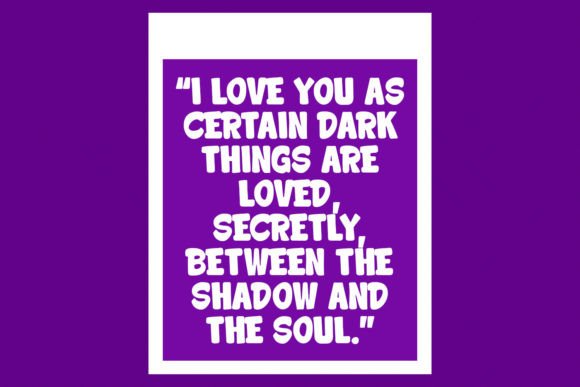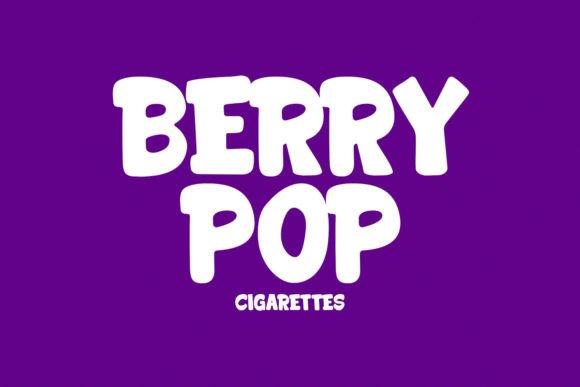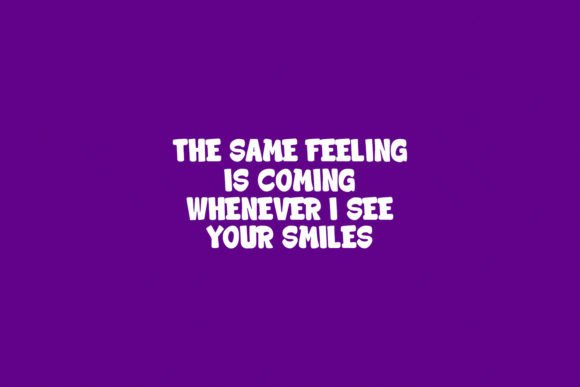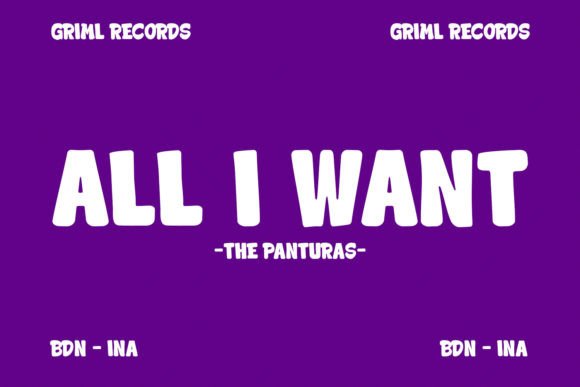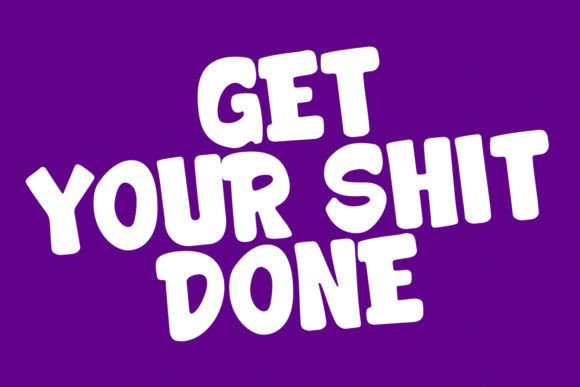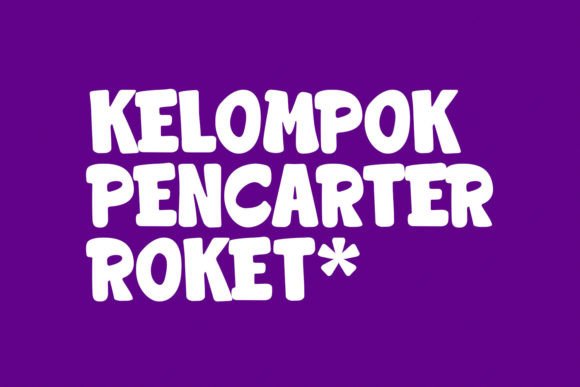
Introducing Garfolk Font: The Quirky Handwritten Display Font You Need
Are you tired of using the same old fonts in your designs? Look no further than Garfolk Font, a quirky handwritten display font that’s perfect for adding a touch of personality to your projects. With its cheerful and casual vibe, Garfolk is ideal for creating a wide range of designs, from trendy social media graphics to eye-catching posters and flyers.
What Makes Garfolk Font So Special?
Garfolk Font is a unique and stylish font that’s designed to add a dash of whimsy to your designs. Its handwritten style gives it a personal and approachable feel, making it perfect for brands and designers who want to connect with their audience on a more personal level. The font’s quirky and playful vibe is sure to grab attention and make your designs stand out from the crowd.
Key Features of Garfolk Font
- Handwritten style: Garfolk Font has a beautiful, handwritten style that’s perfect for creating unique and personalized designs.
- Cheerful and casual vibe: The font’s cheerful and casual vibe makes it perfect for creating designs that are fun, playful, and engaging.
- Trendy and stylish: Garfolk Font is a trendy and stylish font that’s perfect for designers who want to create modern and fashionable designs.
- Versatile: The font is versatile and can be used for a wide range of projects, from social media graphics to posters, flyers, and more.
Project Ideas Using Garfolk Font
Garfolk Font is a versatile font that can be used for a wide range of projects. Here are some ideas to get you started:
- Social media graphics: Use Garfolk Font to create eye-catching social media graphics that are sure to grab attention.
- Posters and flyers: Create trendy posters and flyers using Garfolk Font and add a touch of personality to your designs.
- Handmade crafts: Use Garfolk Font to add a personal touch to your handmade crafts, such as journals, cards, and gift tags.
- Branding and packaging: Use Garfolk Font to create unique and stylish branding and packaging designs that will help your business stand out.
Tips for Using Garfolk Font
Here are some tips for using Garfolk Font in your designs:
- Experiment with different colors: Garfolk Font looks great in a variety of colors, so don’t be afraid to experiment and find the perfect color scheme for your design.
- Use it with other fonts: Garfolk Font pairs well with other fonts, so try using it with a bold font for headings and a clean font for body text.
- Play with different sizes: Garfolk Font looks great in a variety of sizes, so experiment with different sizes to add visual interest to your design.
Garfolk Font is a quirky and stylish handwritten display font that’s perfect for designers and crafters who want to add a touch of personality to their projects. With its cheerful and casual vibe, Garfolk Font is ideal for creating a wide range of designs, from trendy social media graphics to eye-catching posters and flyers. So why not give Garfolk Font a try and see how it can elevate your designs?